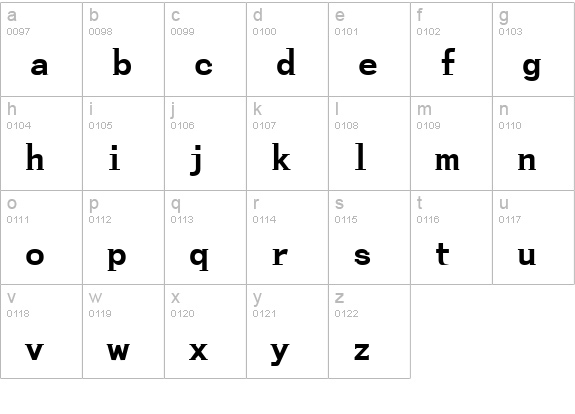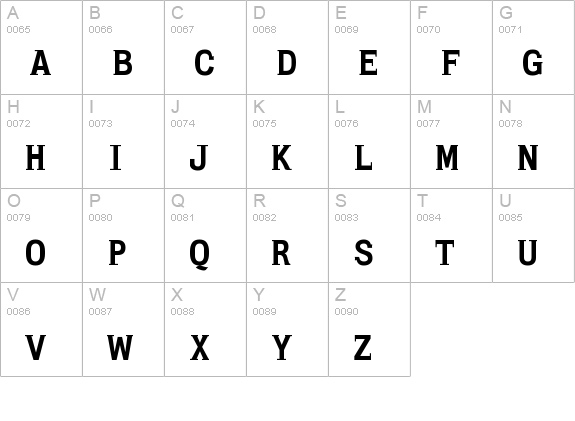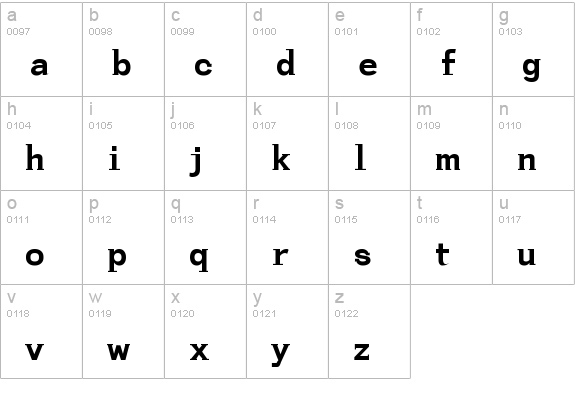
Stavanger Font Details
Stavanger font is a modern and stylish typeface that exudes elegance and sophistication. With its sleek lines and contemporary design, Stavanger is perfect for a wide range of design projects, from branding to editorial layouts. This versatile font offers a clean and professional look that will elevate any project it is used in. The best part about Stavanger font is that it is completely free to download at FontsMarket.com. This means that you can access this high-quality typeface at no cost, making it a valuable addition to your font collection. Whether you are a graphic designer, a marketer, or a creative professional, Stavanger font is sure to impress with its impeccable design and versatility. Don't miss out on the opportunity to enhance your projects with the stunning Stavanger font. Download it for free today at FontsMarket.com and take your designs to the next level.